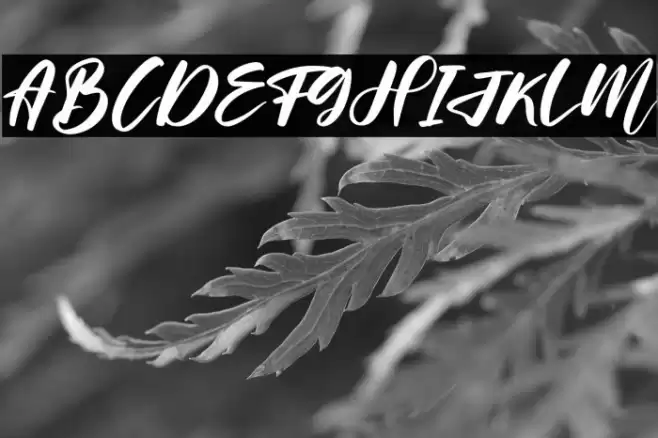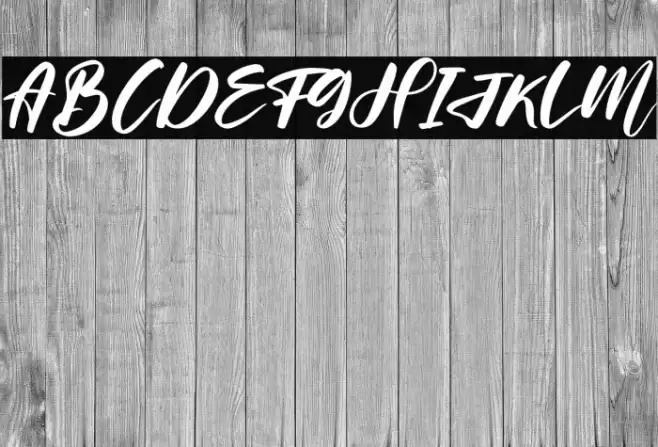
Helloria Abigail Font
Helloria Abigail Description
This font features a dynamic and flowing script style, characterized by its bold and expressive strokes. The letters are interconnected, creating a sense of fluidity and movement. The uppercase letters exhibit a dramatic flair with sweeping curves and loops, while the lowercase letters maintain a consistent rhythm and elegance. The numerals and special characters are designed to complement the overall aesthetic, with a playful yet sophisticated appearance. This font is perfect for projects that require a touch of elegance and personality, such as invitations, branding, and decorative designs.
A bold, flowing script font with expressive, interconnected strokes from Uncategorized fonts.
- Font: Helloria Abigail
- Proposed Projects: Ideal for invitations, branding, decorative designs, and personal projects requiring elegance.
- Character Spacing: Tight
- Use Case: Logos, Headlines, Invitations